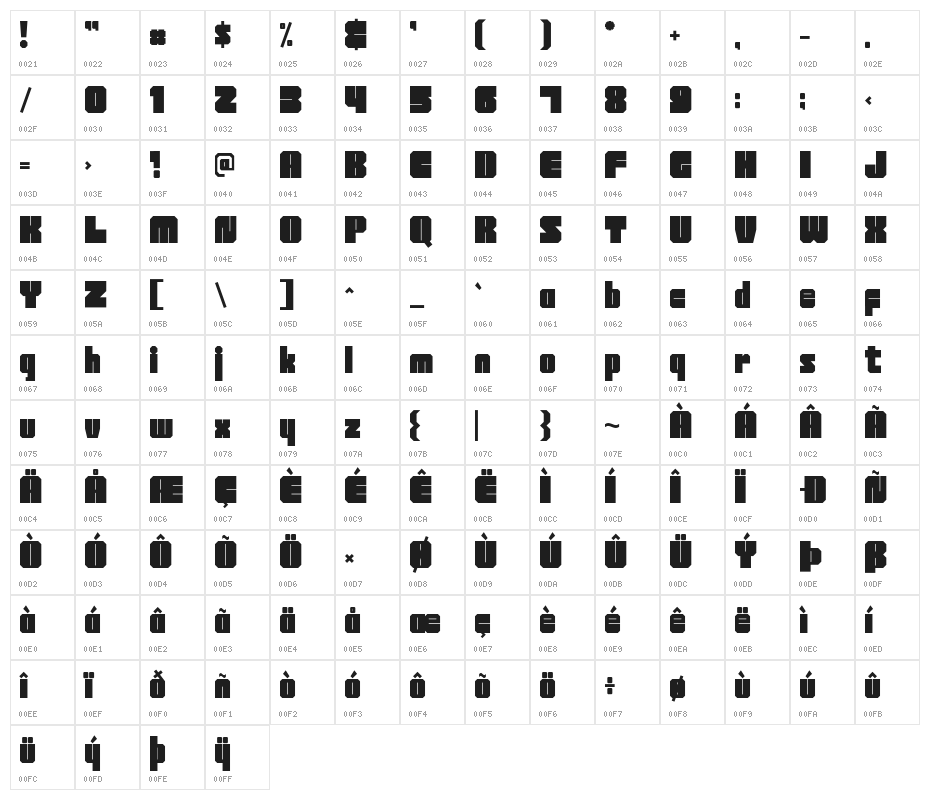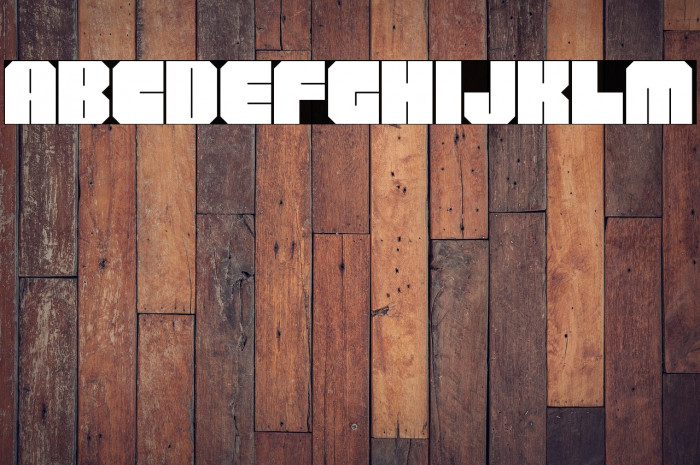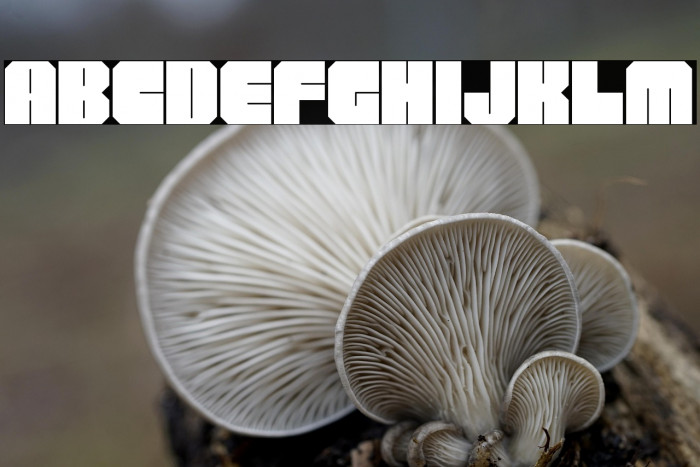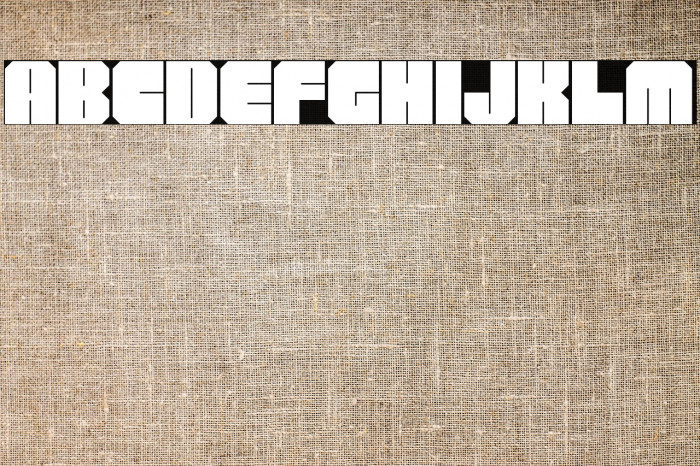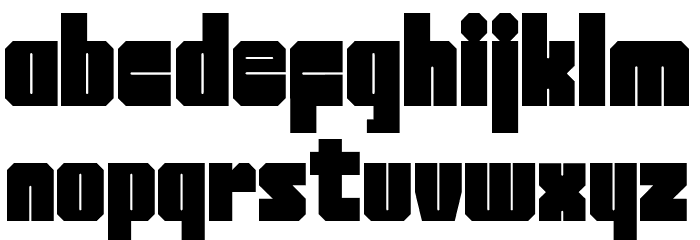
BrickTetris Font
BrickTetris Description
This font features a bold, blocky design reminiscent of classic arcade games and digital displays. The characters are constructed with sharp, angular edges and uniform thickness, giving them a strong, geometric appearance. The uppercase and lowercase letters maintain a consistent style, with the lowercase being slightly more compact. Numbers and special characters follow the same design principles, ensuring a cohesive look across all glyphs. The overall aesthetic is both retro and modern, making it suitable for projects that require a bold, eye-catching typeface.
| Overall Style | Retro, Modern |
| Proposed Projects | Ideal for video game graphics, posters, logos, and any design needing a strong, retro aesthetic. |